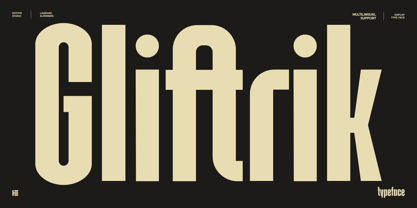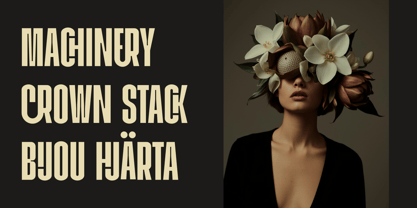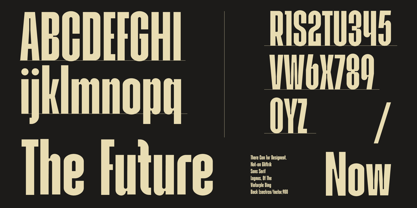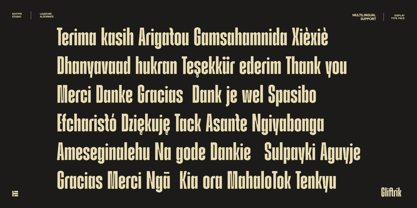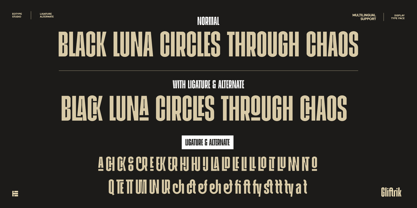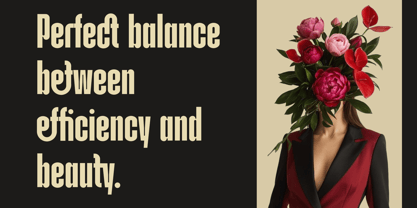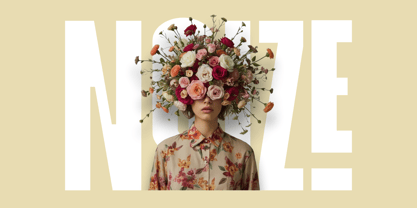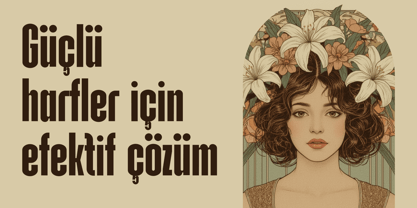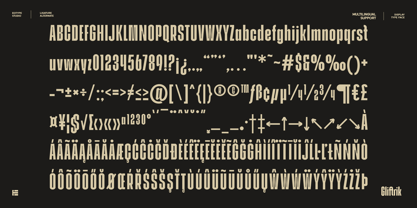
Gliftrik
by Eotype
The Gliftrik Font Family was designed by Fajar Ramadan and published by Eotype. Gliftrik contains 1 styles. More about this family
traps and unexpected ligatures that connect glyphs in expressive, unconventional ways—like CR, IJ, HJ, or even UN and TT.
It's loud when it needs to be, clean when it must be. With just enough rebellious detail, Gliftrik brings editorial character to posters, album covers, and modern web layouts.
Use it when the standard Grotesque feels too safe, and the brand needs something bolder, leaner, and smarter.
Features:
• Ultra-narrow width with tall proportions
• Experimental ligatures for typographic play
• Industrial ink trap accents
• Multilingual support